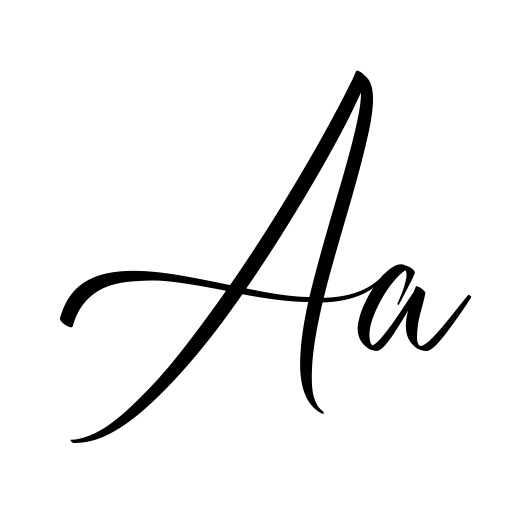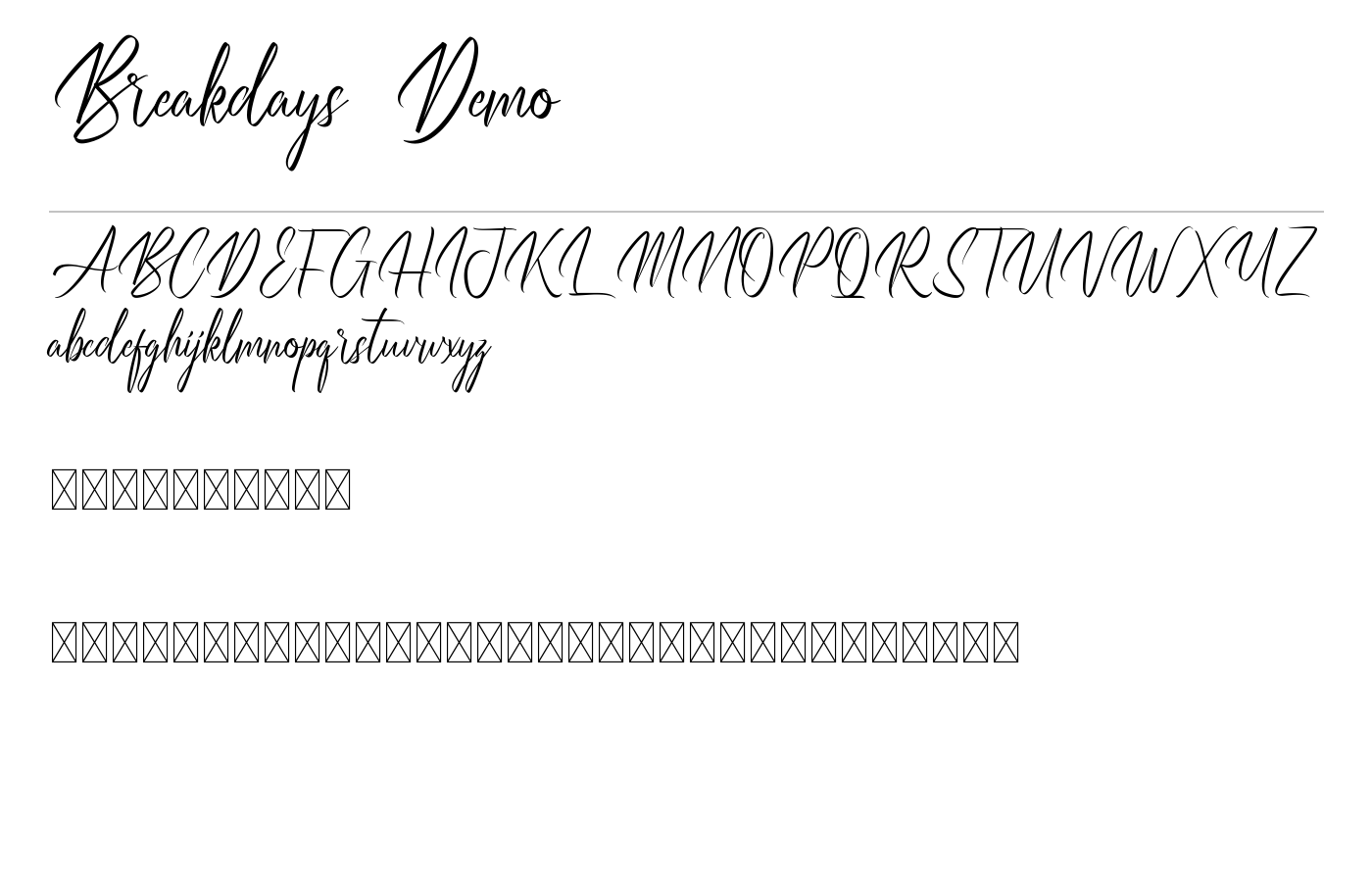
Breakdays Demo is a graceful script font characterized by its elegant, flowing strokes and slender form. Its narrow width and tall x-height give it a refined, modern feel, making it perfect for sophisticated branding, invitations, and stylish headlines where a touch of handwritten charm is desired. This font works beautifully in designs that need a delicate, personal touch while maintaining a clean, contemporary look.
Breakdays Demo Font
About Breakdays Demo Font
| Font family | Breakdays Demo Font |